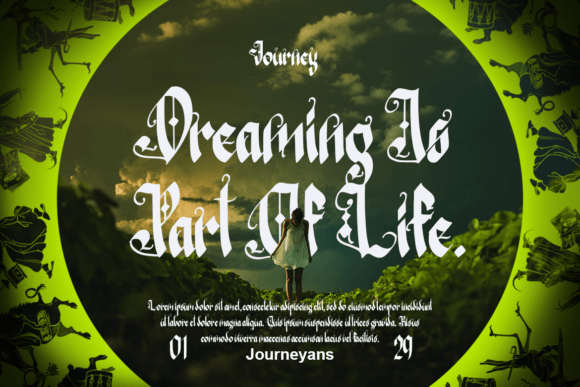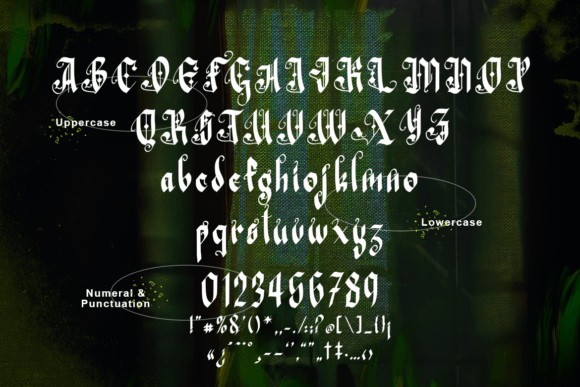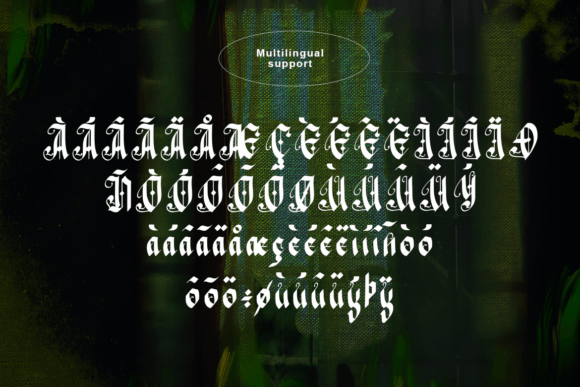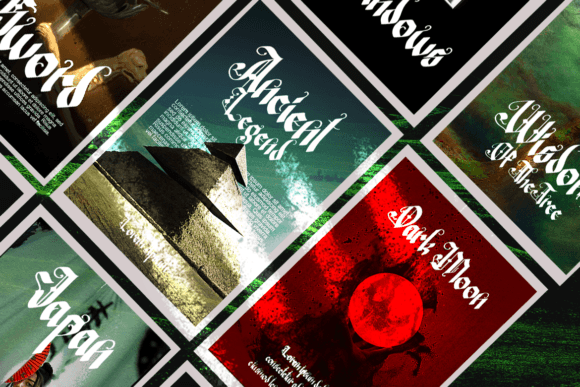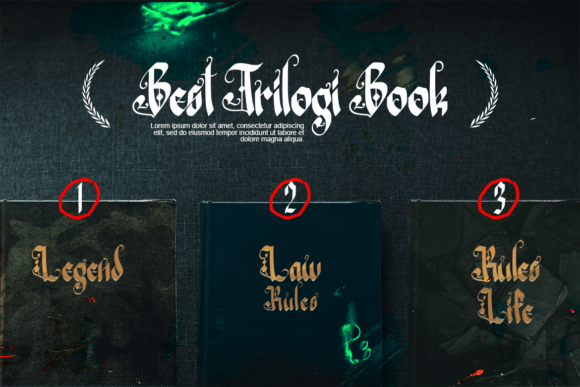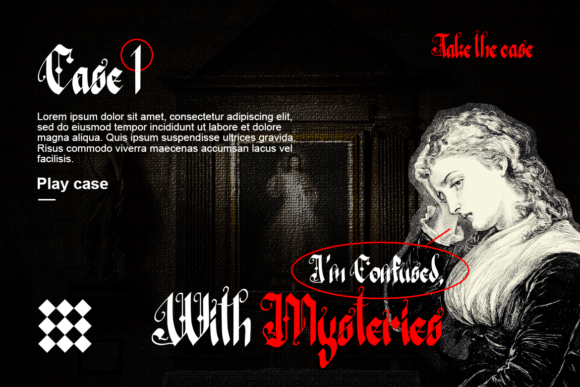
The Enchanting World of Fairy Tail Font
Have you ever been working on a design project, and suddenly, you felt like it was missing that special something? I recall a project where I was tasked with creating a whimsical invitation for a children’s birthday party. As I scrolled through font after font, nothing seemed quite right – that was until I stumbled upon the Fairy Tail Font. This delightful blackletter font instantly transported me to a fairytale land, and I knew I had found the perfect fit.
A Personal Review of Fairy Tail Font
- ✨ The Fairy Tail Font has a unique, cartoon-like charm that immediately captures the imagination.
- ✅ Its versatility makes it suitable for a wide range of projects, from children’s adventures and games to party invitations and crafts.
- 🎉 The font’s whimsical nature adds a touch of magic to any design, making it perfect for creative hobbyists and professional designers alike.
While the Fairy Tail Font is a wonderful addition to any design project, there are a few things to keep in mind:
- ⚠️ Some of the letters may appear a bit condensed, which could affect readability at smaller font sizes.
- 🤔 The font’s blackletter style might not be the best fit for more formal or traditional designs.
The Backstory Behind Fairy Tail Font
Legend has it that the Fairy Tail Font was inspired by the magical world of fairytales and folklore. Its creator, a passionate typographer, sought to capture the essence of these fantastical stories in a font that would transport users to a world of wonder and enchantment. With its unique blackletter style and whimsical charm, the Fairy Tail Font is sure to bring a touch of magic to any design project.
| Author | meizzalunadesign |
Q: What type of projects is the Fairy Tail Font best suited for?
A: The Fairy Tail Font is perfect for projects related to children’s adventures, games, parties, and any design that requires a touch of whimsy and fantasy.
Q: Is the Fairy Tail Font available in different styles or variations?
A: While the Fairy Tail Font may not have multiple styles or variations, its unique blackletter style and whimsical charm make it a versatile addition to any design project.